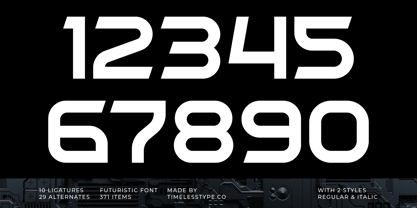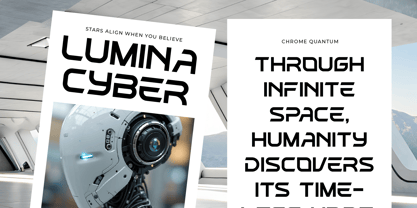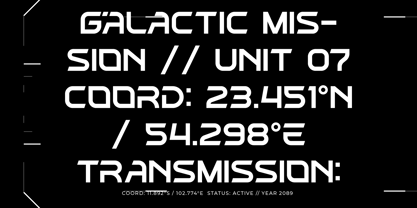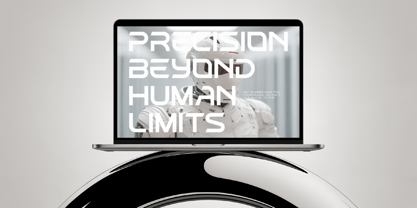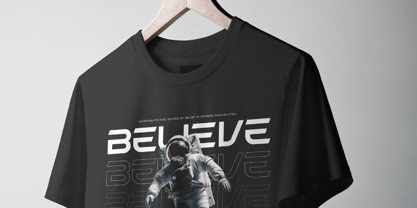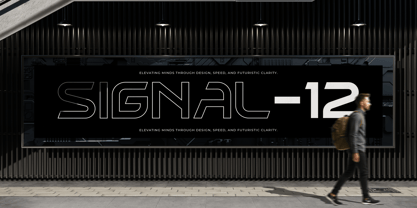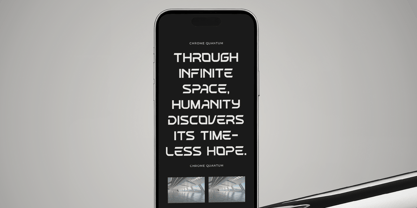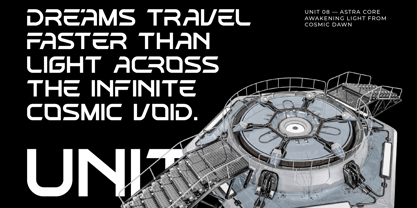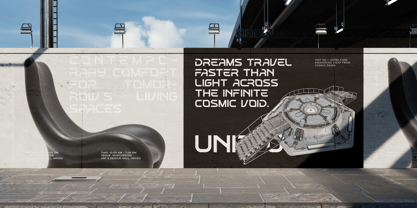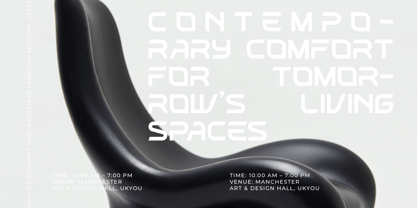
Chrome Quantum
The Chrome Quantum Font Family was designed by Heru Utama Putra and published by Timelesstype Studio. Chrome Quantum contains 2 styles and family package options. More about this family
Chrome Quantum - Futuristic Font , from Timelesstype , Suitable for any projects such as: logos, branding projects, homeware designs, product packaging, mugs, quotes, posters, shopping bags, t-shirts, book covers, name card, invitation cards, greeting cards, label, photography, watermark, special events, and all your other luxury and beautiful projects that need a Luxury Serif taste.